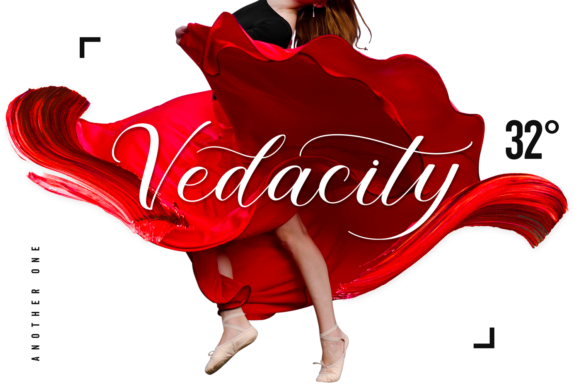
Unveil the Exquisite Beauty of Vedacity: A Font Symphony for Timeless Elegance
In the realm of visual communication, where words dance and emotions ignite, there lies a font that captures the essence of grace and sophistication – Vedacity. Born from the creative hands of konstantinestudio, this script font is a testament to the power of handwritten artistry, reimagined for the digital age.
Immerse yourself in the allure of Vedacity, a font that embodies the spirit of timeless elegance. Its delicate strokes and well-balanced letters harmonize to create a masterpiece that dances across your designs with effortless charm. Prepare to be captivated by its incredibly versatile style, a symphony of creativity that awaits your exploration.
With Vedacity at your fingertips, unlock a world of possibilities. Its captivating presence graces wedding invitations with an air of romance, bestowing an aura of enchanting beauty upon each heartfelt word. Unleash your creativity and craft breathtaking logos that radiate sophistication, leaving an indelible mark on your audience. Let Vedacity adorn your social media posts, transforming them into captivating expressions of art that resonate with your followers.
Journey through the depths of your imagination and elevate your designs to new heights with Vedacity. Its versatility extends far beyond the confines of traditional applications, beckoning you to explore uncharted creative territories. Unleash your inner artist and embrace the limitless potential of Vedacity, the font that knows no bounds.
Indulge in the exquisite beauty of Vedacity, a font that transcends time and trends. Its delicate charm and elegant allure will captivate your audience, leaving them spellbound by the sheer brilliance of your designs. Embrace the power of visual storytelling and let Vedacity lead you on a journey of creative expression that knows no limits.